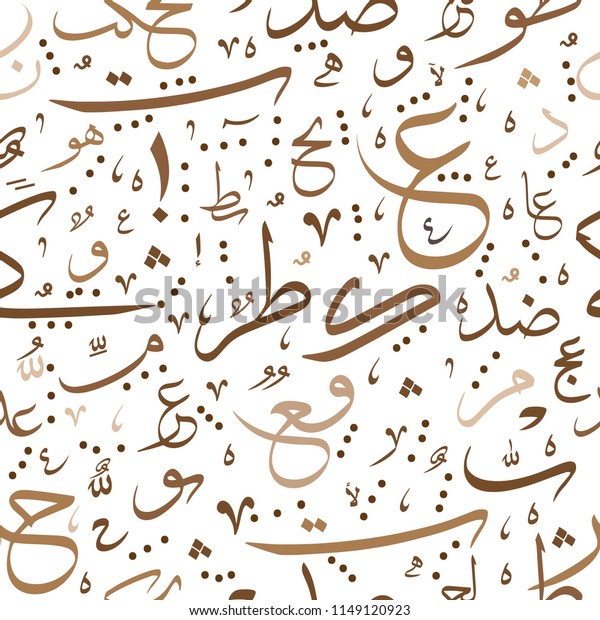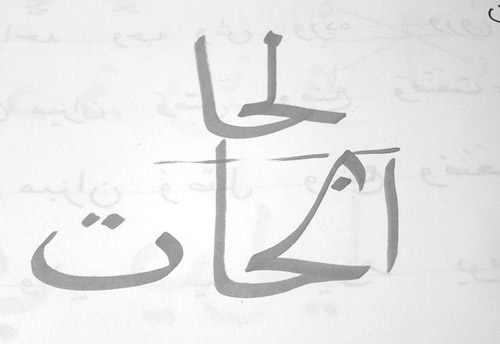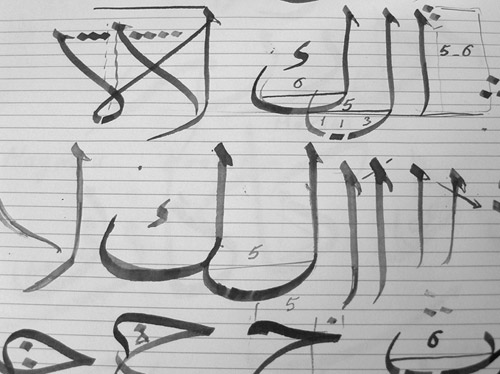
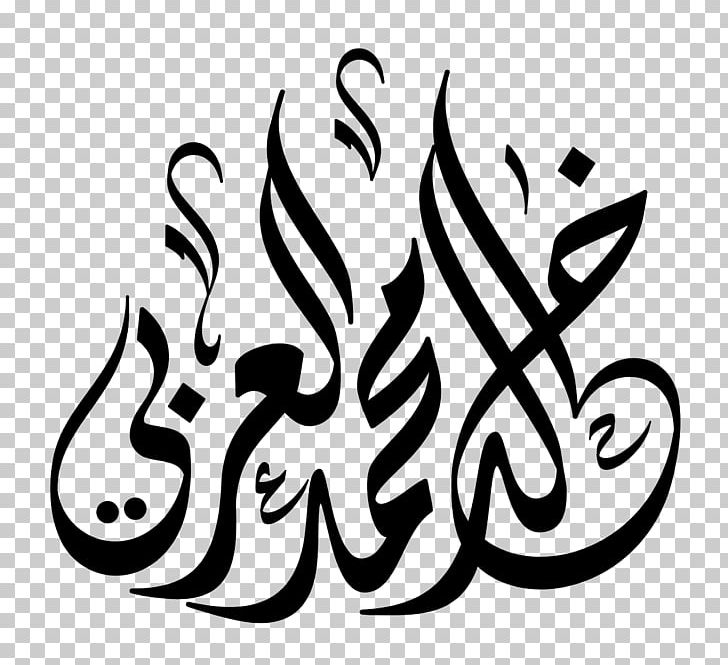
This Arabic calligraphy font is based on Hijaiyah letters. Its one of the oldest handwritten arabic fonts. The look and stance of the fonts improves the appeal of the job making it value seeing.
We have 1 free Arabic Mubarak Calligraphy Thuluth Font to offer for direct downloading 1001 Fonts is your favorite site for free fonts since 2001. Arabic calligraphy integrates a cultural language with the language of geometry. Jun 30 2013 - Explore Latifa66s board Arabic Fonts on Pinterest.
Jun 21 2020 - Explore Mostafa Mashhours board Arabic fonts on Pinterest. Bahrain Arabic Calligraphy By One Bh Arabic Calligraphy Tattoo Calligraphy. Syawal Khidmat Font is designed by Gunarta the template with black Arabic calligraphy font add a lot of depth and dimension to any design and makes the words more prominent.